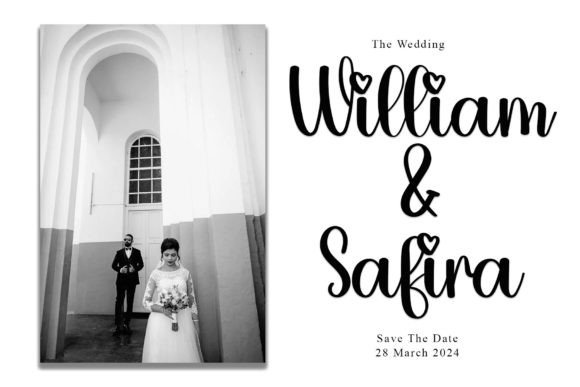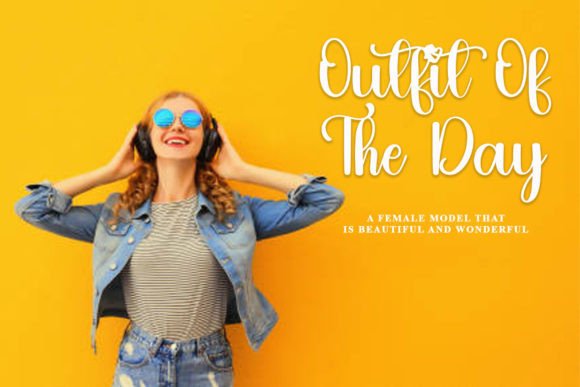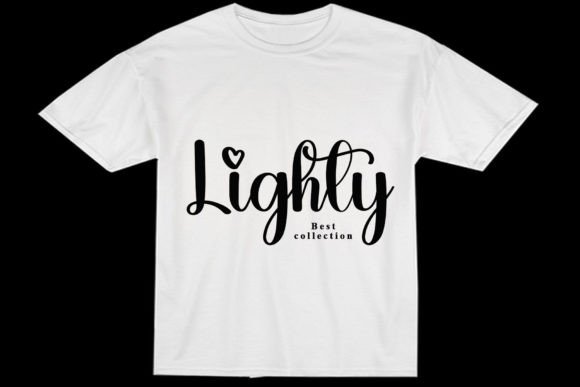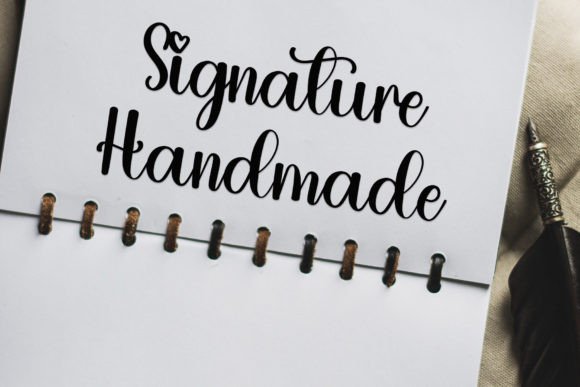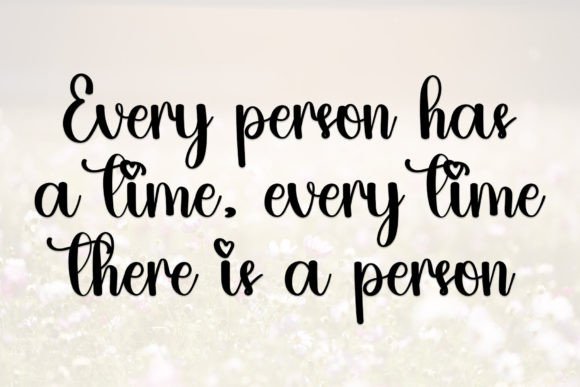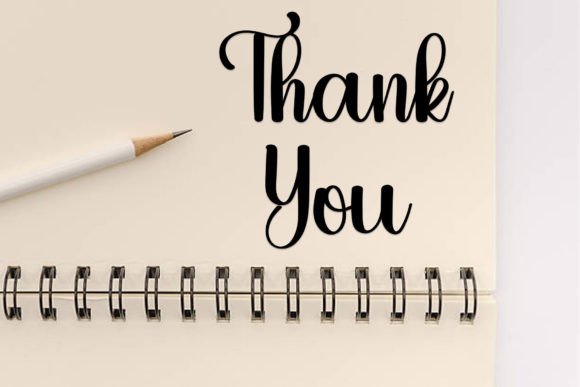
Introduction to Light Night Font
Have you ever stumbled upon a design project where everything just falls into place? The colors, the textures, the typography – it all comes together to create a cohesive, breathtaking visual experience. For designers, these moments are a thrill, and the right font can make all the difference. This is where the Light Night Font shines, with its elegant and charming handwritten script that adds a touch of sophistication to any design.
Perfect for creative projects that require a high-quality, unique look, the Light Night Font is a valuable resource for designers. Its fluid strokes and natural flow create a captivating atmosphere, making it perfect for branding, invitations, or social media graphics. Whether you’re working on a personal project or a commercial design, this font is sure to bring a sense of warmth and creativity to your work.
Key Features of Light Night Font
- High-quality design resource ideal for creative projects and designs
- Unique, elegant design with subtle nuances for added visual interest
- Can be used for a variety of design applications, including logos, typography, and more
Honest Review: Light Night Font
As a designer, I’m always on the lookout for high-quality fonts that can elevate my creative projects. Recently, I came across the Light Night Font, and I’m excited to share my thoughts on this design resource.
- ✨ The font has a beautiful, modern aesthetic that’s perfect for a variety of designs.
- ✨ The transparent background makes it easy to use with images and other design elements.
- ✨ The font is highly customizable, allowing me to adjust the size, color, and style to suit my needs.
- ⚠️ The font is not suitable for use in small text sizes, as the letters can become distorted.
- ⚠️ The font is only available in a limited number of weights, which may not be ideal for complex designs.
Overall, I’m impressed with the Light Night Font. While it may have some limitations, its unique style and high quality make it a valuable addition to any designer’s toolkit. Plus, it’s available for free download, making it an excellent resource for designers on a budget.
Tips for Getting the Most Out of Light Night Font
To maximize the impact of the Light Night Font, experiment with different font sizes, colors, and styles. Combine it with other design elements to create a visually appealing and cohesive design.
The Light Night Font is ideal for various creative projects, such as designing posters, flyers, business cards, and presentations. Its high-quality and transparent background make it a versatile design resource for any project.